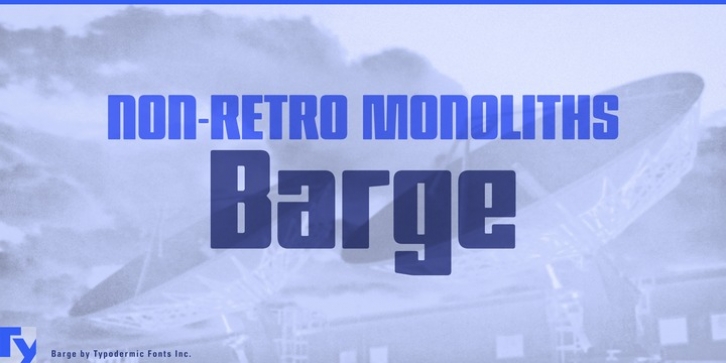
Barge was designed by Ray Larabie and published by Typodermic. Barge contains 1 style.
Barge is massive and compact. Bold, non-retro monoliths with smooth chamfers deliver bunches of punches.